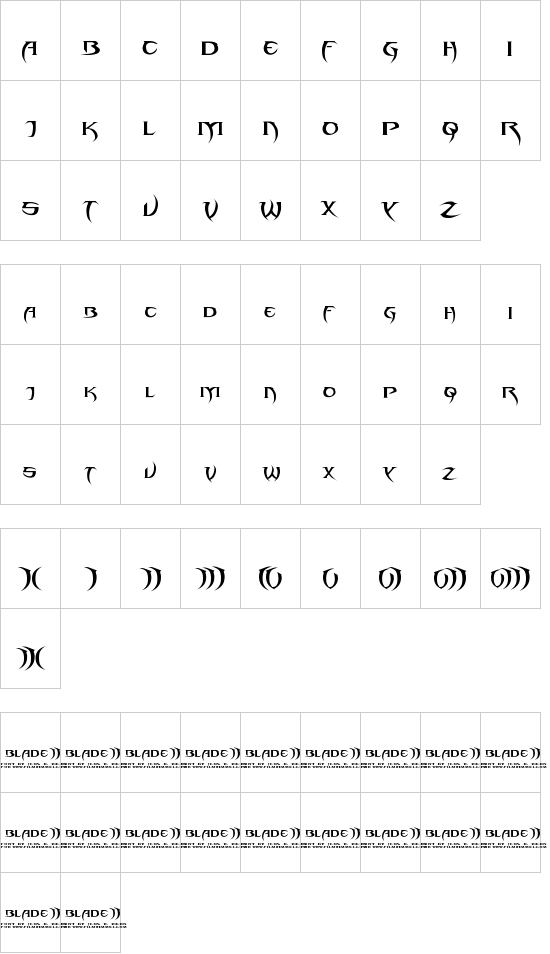
Blade 2
About Blade 2
Blade 2 is a medieval display font with sharp, sword-like serifs and a dark, bladed edge. The strokes taper to fine points and cut at aggressive angles, suggesting drawn steel and battle-worn heraldry, giving the face a fierce, epic presence.